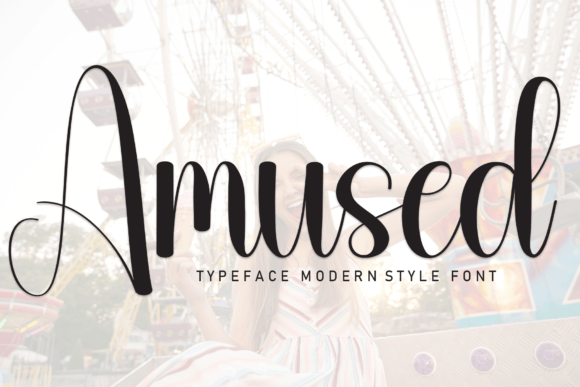
The Joy of Design: Introducing the Amused Font
As a designer, have you ever been stuck on a project and needed that one extra spark to bring it to life? I’m sure many of us have been there – staring at a blank page, searching for the perfect font to capture the essence of our creative vision. For me, that spark came when I discovered the Amused Font. This sweet and friendly handwritten font is a breath of fresh air, perfect for adding a fun touch to any design project.
Whether you’re crafting wedding invitations, designing greeting cards, or simply looking for a unique way to express yourself, the Amused Font is an invaluable tool in your creative arsenal. Its fresh and neat design makes it a standout choice for any project that requires a playful and approachable vibe. With the Amused Font, you’ll be able to add a dash of personality to your designs and leave a lasting impression on your audience.
Key Features of Amused Font
- Unique Characteristics: Amused Font features a playful, hand-drawn design with intricate details and subtle texture, making it perfect for creative projects that require a touch of whimsy and personality.
- Font Styles: Amused Font includes multiple font styles, including Regular, Italic, Bold, and Bold Italic, giving designers the flexibility to create a wide range of visual effects and moods.
Amused Font Review
Overall, I think the Amused Font is a fun and playful typeface. ✨ It’s perfect for adding a touch of whimsy to your designs, especially for children’s products, entertainment, or social media graphics.
Here are some of the things I like about the Amused Font:
- ✨ It’s highly customizable, allowing you to adjust the width, height, and spacing to fit your design needs.
- ✨ The font is highly legible, even at small sizes, making it ideal for body text or captions.
However, there are some limitations to the Amused Font:
- ⚠️ The font may not be suitable for formal or professional designs, as it can come across as too playful or childish.
- ⚠️ Some users may find the font too ornate or busy, which can detract from the overall design.
Overall, I think the Amused Font is a great choice for designers who want to add a touch of fun and whimsy to their designs. While it may have some limitations, it’s a versatile and highly customizable typeface that can be used in a wide range of design contexts.
Amused Font is ideal for creating playful and whimsical designs, such as social media graphics, invitations, and children’s books. To get the most out of this font, use it in combination with bright and bold colors and playful graphics. You can also use Amused Font to add a touch of humor and personality to your designs.